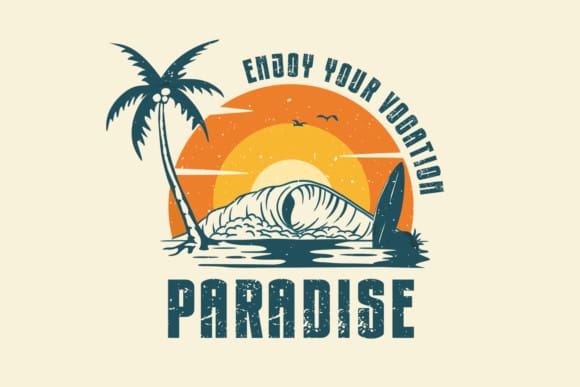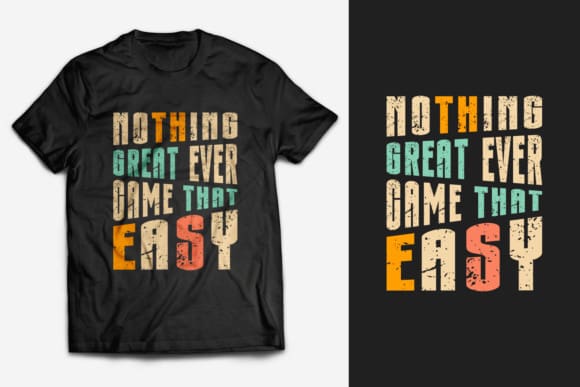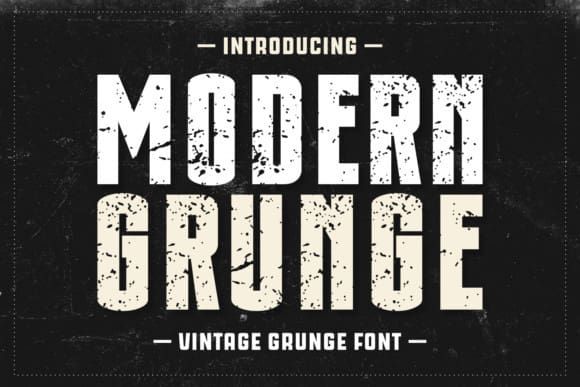
Modern Grunge Font
Modern Grunge Font, a fusion of an old-style, vintage font with a contemporary edge. Possessing a unique grunge aesthetic interspersed with thick, distinctive strokes, it’s a perfect accompaniment to alternative members of the type family. This font effortlessly compliments the authenticity of any apparel, with its clean lines presenting an aura of sophistication. As a trusted companion for any book, from its cover to its inner pages, it captures attention, providing an evocative visual experience for the readers.
“Modern Grunge” is the soulmate to branding, making a firm statement in logotypes and magazine headlines alike. It is built for communicating your message on packaging, greeting cards, or quotes with gusto, creating a lasting impression. Perfectly suited for T-shirt graphics, it’s a captivating add-on. It’s laudably brilliant in setting typography trends while being versatile enough to adapt to seasonal changes. Enthralling the visual space with its uniqueness, Modern Grunge is the perfect addition for expressing yourself. With its distinct personality, it is a font set that never fades from admiration.